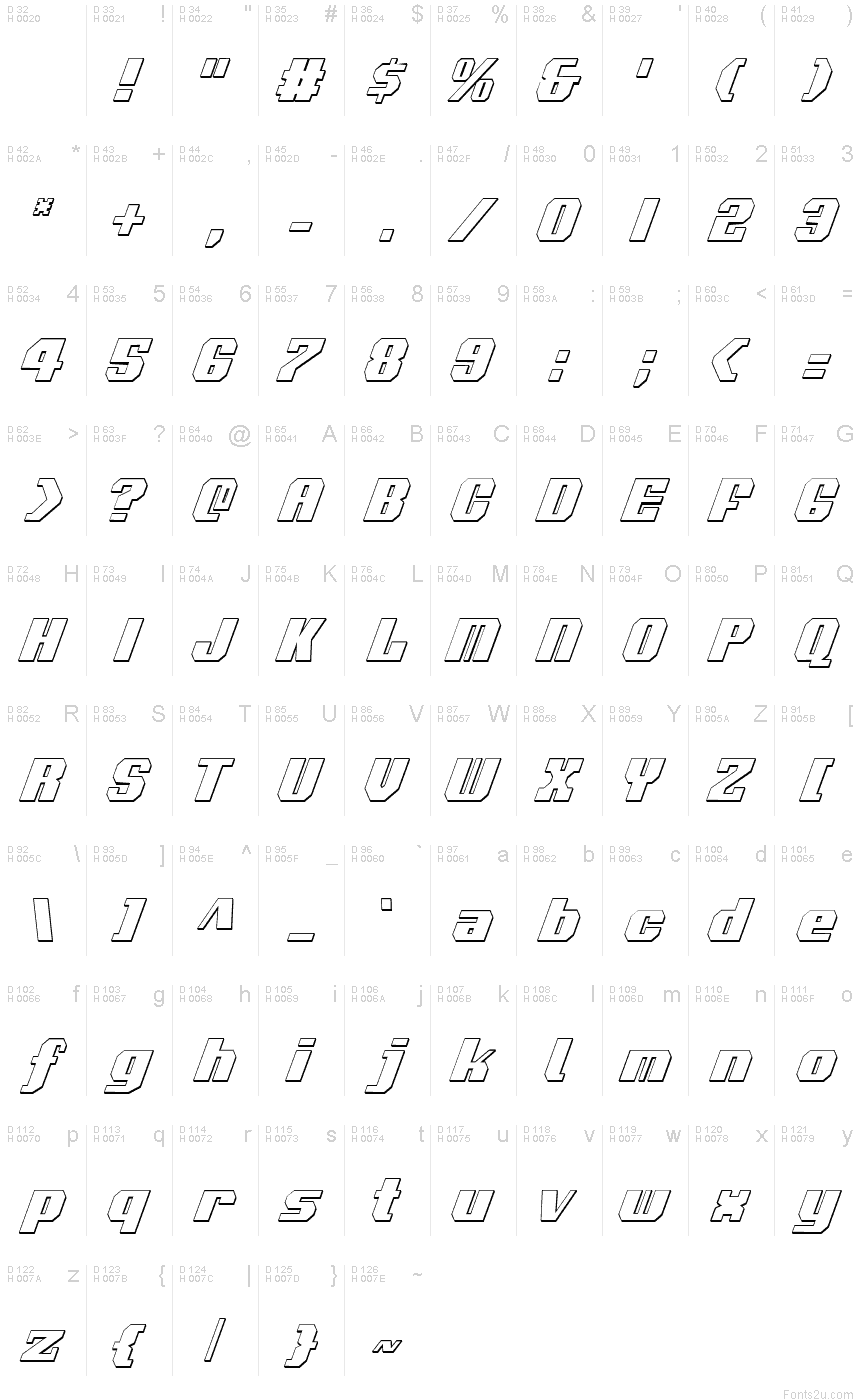
Voortrekker 3D Condensed Italic, designed by Iconian Fonts in 2009, is a free italic techno display font with a hard, forward-driving silhouette. Its outlined construction uses slanted blocks, sharp corners, and narrow inset cuts to suggest machined depth.
Sports event posters are its strongest setting, since the broad leaning letters echo racing graphics and team insignia. It also suits gaming title cards, merchandise, and venue signage, where the lettering can become part of a badge, speedway sign, or angular interface panel.